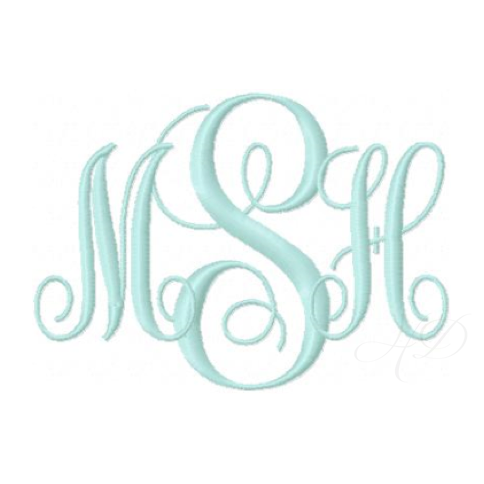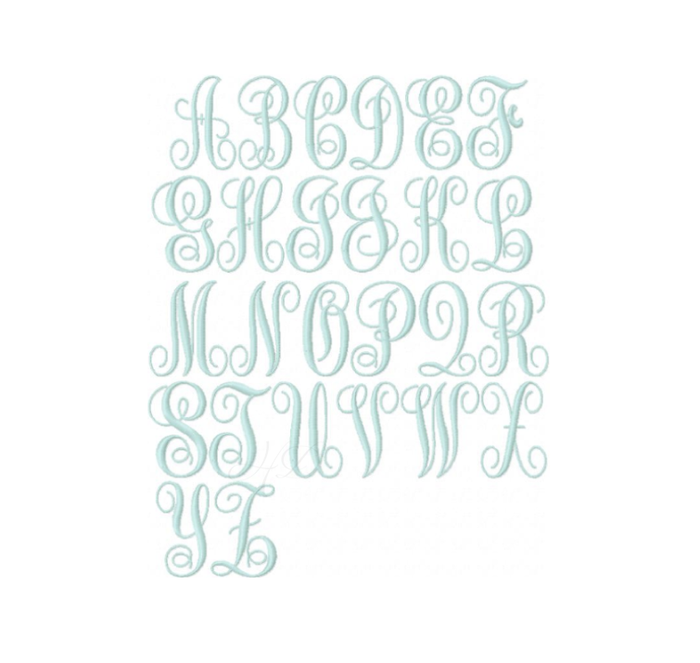
Classic Monogram Vine Embroidery Font
Discover the beauty and elegance of the Classic Monogram Vine Embroidery Font. This versatile package includes 4 different files, each offering 2 sizes for a total of 8 sizes. With 52 individual letters available, you can personalize any project effortlessly.